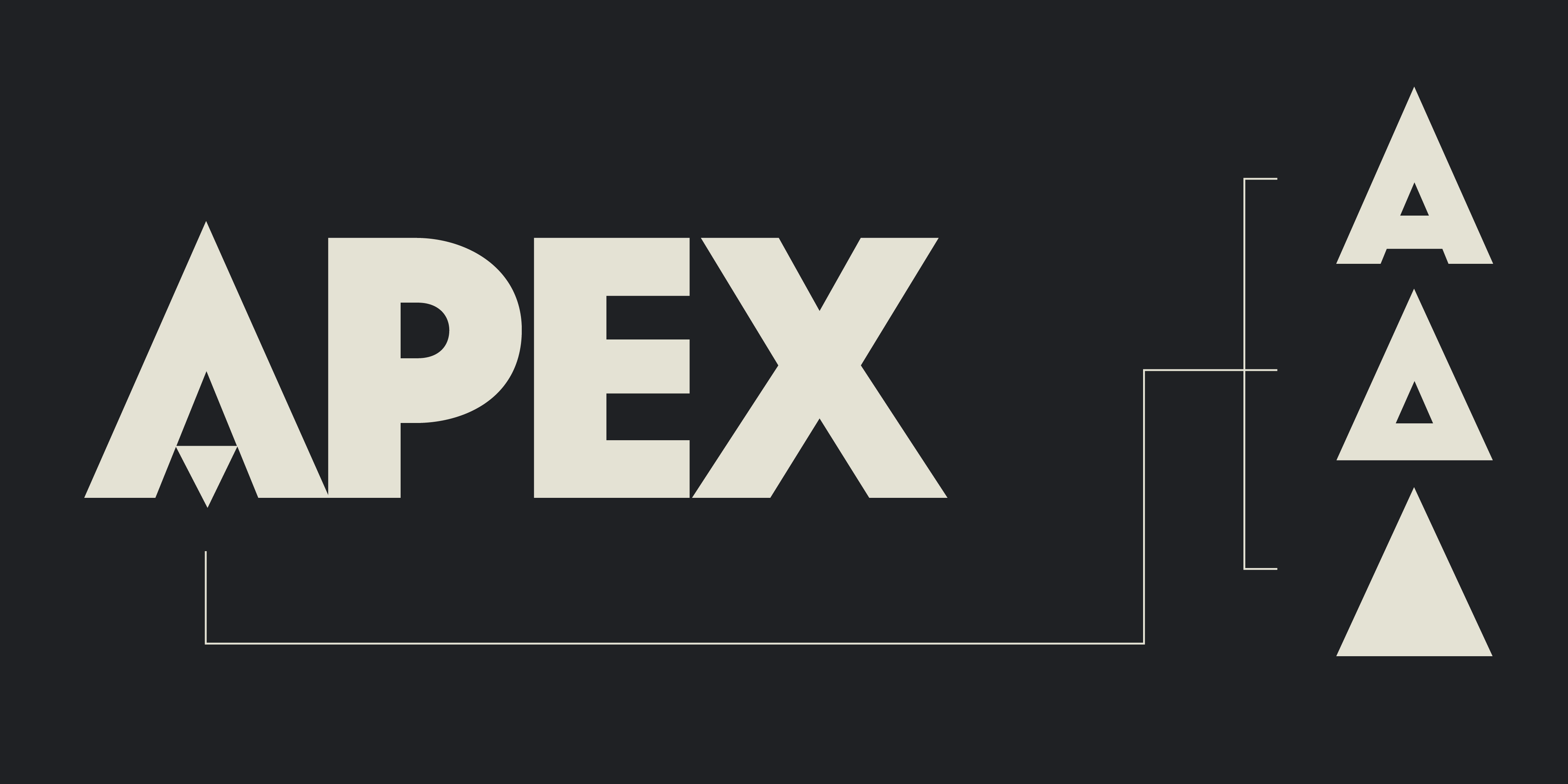
Triangle Fonts: Sharp Apex Letter Forms in Apex, Scal, Bool, and Rati
What Is a Triangle Font?
When designers talk about "triangle" letters, they’re referring to a structural property: a sharp apex (the peak of letters like A, M, N, and W) or a sharp vertex (the bottom point of V, W, and the inside angle of A and K). When a typeface treats these points as sharp triangles rather than blunting them with cuts or curves, the letters take on a crisp, geometric, slightly futuristic character.
Triangle fonts suit tech, science, architecture, sports, and modernist branding where the visual frame should feel precise and structured. They’re also striking in display sizes for posters, headlines, and wordmarks. Below are four Mojomox fonts that lean into the triangle property: Apex (designed around it), Scal (Futura-inspired with sharper terminals), Bool (playful but sharp), and Rati (contrast typeface with a sharp triangle A).
Apex: Built Around the Triangle
Bauhaus Apex is a simple, geometric sans-serif font with a futuristic quality. It features lots of alternate letter designs, accessible via stylistic sets in design programs such as Illustrator, InDesign, and Figma. The capital letter A is the headline example: it’s a pointy letter by default, but you can swap it for a version with a triangle replacing the crossbar, an outline triangle, or a fully filled triangle.
Other pointy letters in Apex are N, M, W, v and w, and two stylistic sets give the lowercase o a point at the bottom or at the top. The letter t/T has alternate designs with a pointy T arm for both uppercase and lowercase.
Apex has nine font weights, from Thin (100) to Black (900).
Scal is a Futura-inspired modern geometric sans-serif with sharpened terminals and pointed apexes on A, M, N, and W. The Futura DNA gives Scal pure geometric construction; the sharper terminals push it toward the triangle aesthetic without losing the clean modernist frame.
Scal works in branding, body copy, and headlines. It pairs well with the geometric sans-serifs in our geometric sans-serif fonts roundup. The font has alternates including stylistic ligatures for customization.
Bool is a playful geometric sans-serif with pointed details on A, M, N and W. The geometric base keeps the typeface clean and modular while the pointed tips add a sharper, more energetic visual character. The capital A in Bool is a clear triangle apex, and M, N and W share the same sharp points.
Bool suits friendly tech, kids brands, playful display work, and any project that wants visual energy without losing structure. Available in multiple weights with a strong set of alternates.
Rati is a contrast typeface (thin and thick strokes) with a sharp triangle A and pointed apexes throughout. Unlike the other three triangle fonts here, Rati introduces calligraphic contrast, which gives the sharp letterforms an editorial, fashion-leaning feel rather than a purely technical one.
Rati suits beauty branding, fashion editorial, boutique packaging, and any project where the triangle letter property should read as refined rather than industrial. Available in multiple weights with stylistic alternates.
The sharper the apex, the more attention the letter draws. That makes triangle fonts strong choices for headlines, posters, wordmarks, and short copy where the type should feel structured and a little futuristic. In long text they can read as visually busy, so use them for display and pair with a calmer body face.
For brand systems that lean modernist and technical, an Apex headline plus a quieter geometric sans for body text (like Bitec or Vole) is a strong combination. For playful or display-heavy work, Bool can stand alone.